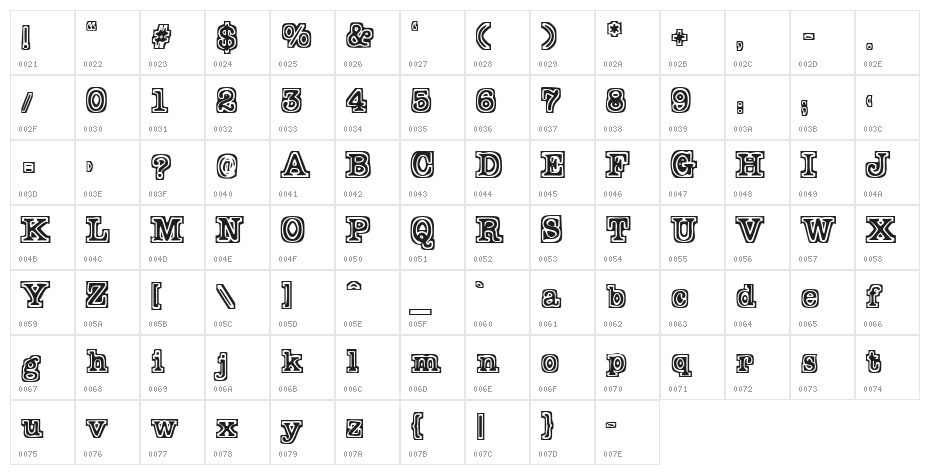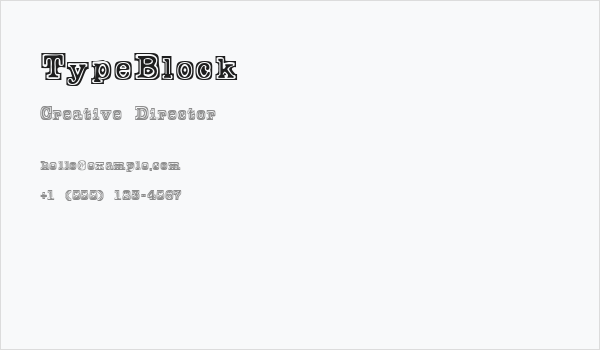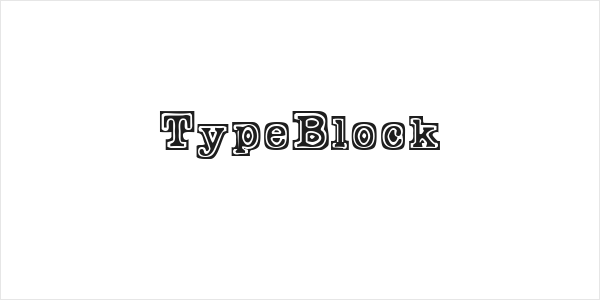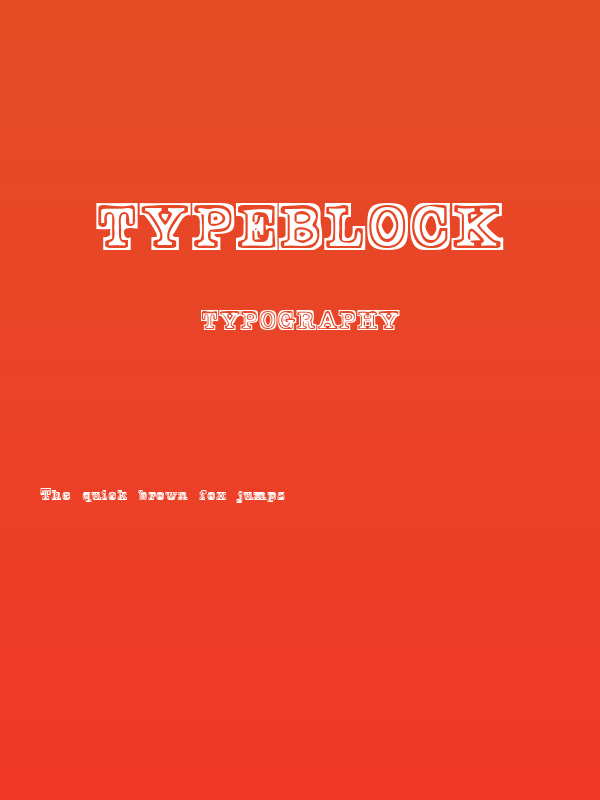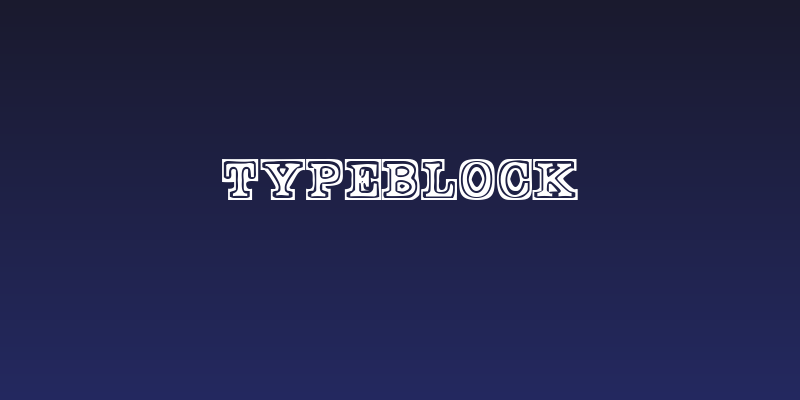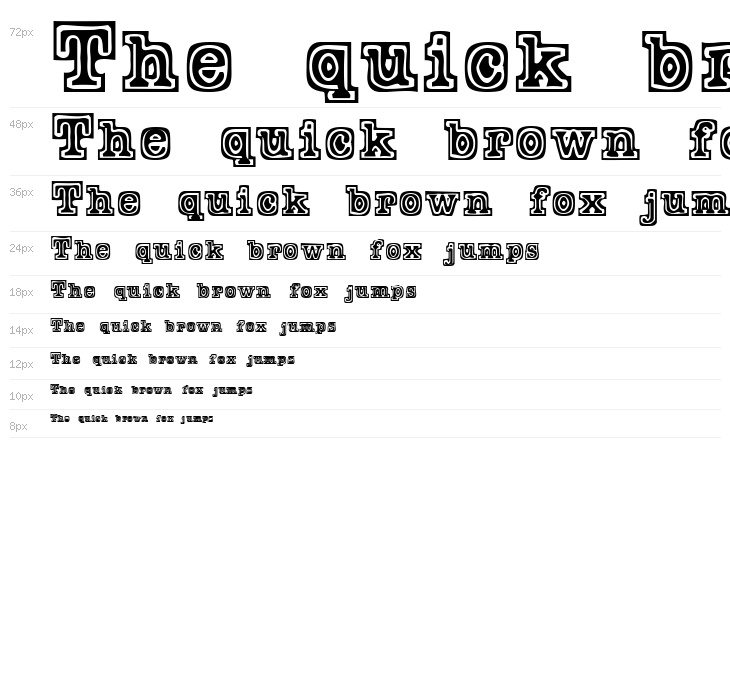
TypeBlock Font
TypeBlock Description
This font features a bold and striking design with a double outline that gives it a three-dimensional appearance. The uppercase and lowercase letters maintain a consistent style, with strong, geometric shapes and a slight vintage flair. The numerals and special characters are equally bold, ensuring readability and impact. The font's unique outline effect makes it stand out, ideal for designs that require a touch of retro or decorative appeal. Its structured form and clear lines make it versatile for various applications, from posters to branding materials.
Overall StyleVintage, Decorative
Proposed ProjectsIdeal for posters, branding, headlines, and any design needing a retro or decorative touch.